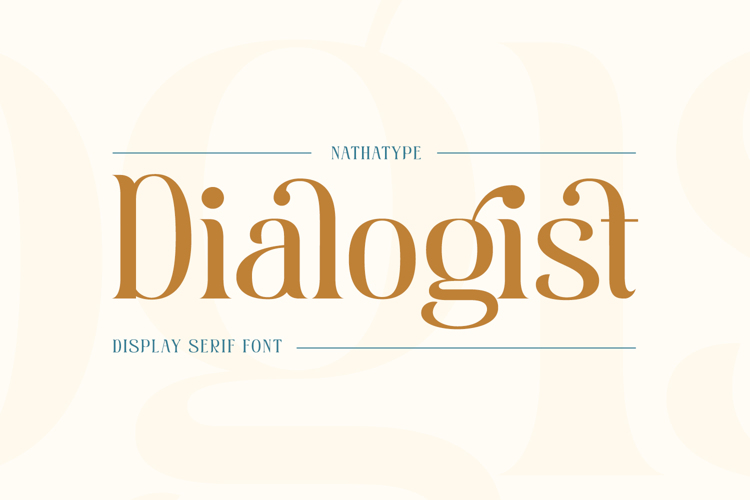
Dialogist Font
Product Description:
Dialogist is a display serif font animated in balanced beauty with curvy lines on each letters’ edges to make it look elegant and classic. Due to its bigger size than any other serif fonts, it becomes a noticeable and eye-catching font design. Proportions among letters equal to low contrasts, but it is still legible due to the font’s wide spaces.
Features:
• Stylistic Sets
• Ligatures
• Multilingual Supports
• PUA Encoded
• Numerals and Punctuations